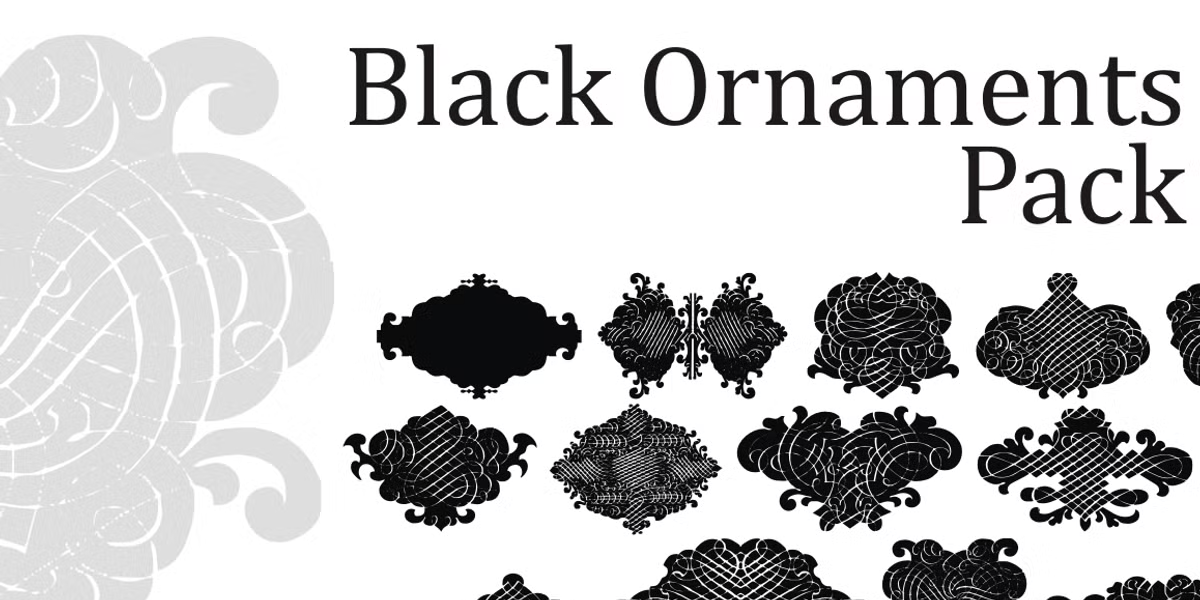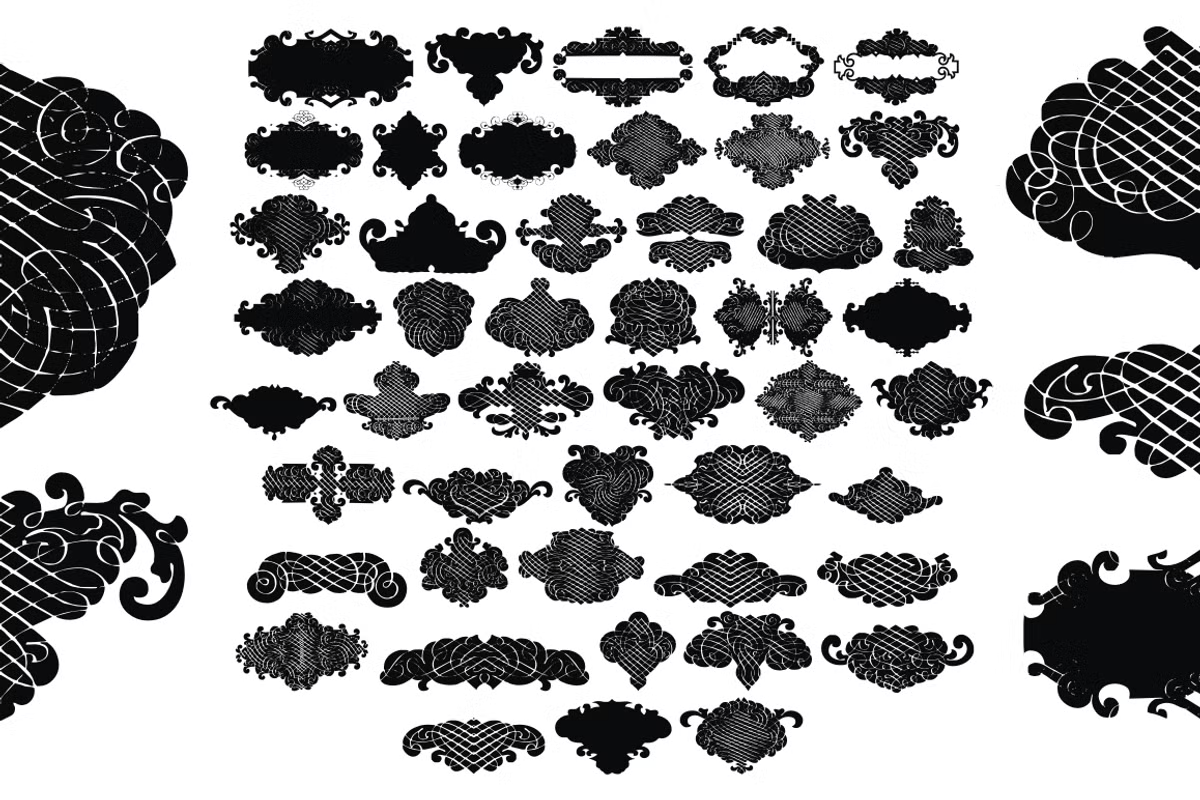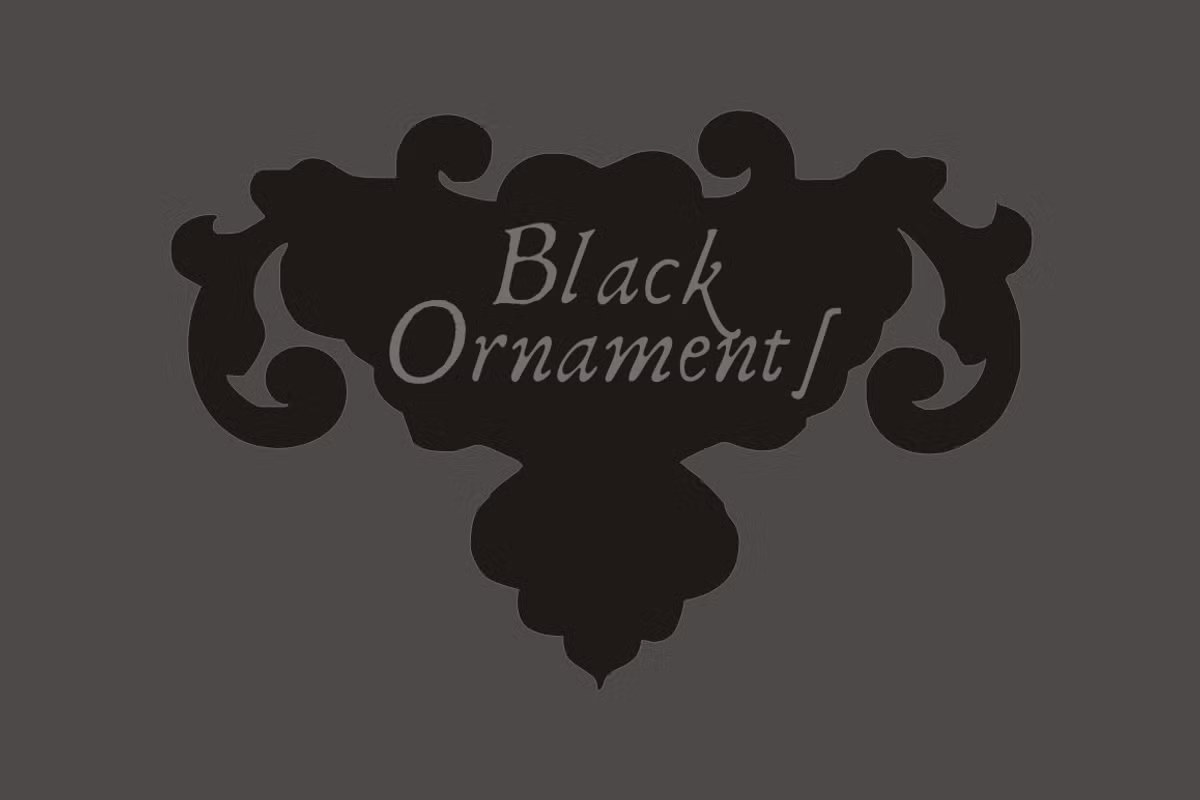
Black Ornaments Pack
Font Family by Intellecta Design
Black Ornaments Pack has two ornament/dingbat fonts, inspired by the CalligraphiaLatina font series. You can dirty up (or deconstruct) these gracious and classic-looking curves in many ways: using a variety of software filters; by superimposition: or even by hand. The result works well when you want that worn-down grungy look. Over 100 glyphs in two fonts